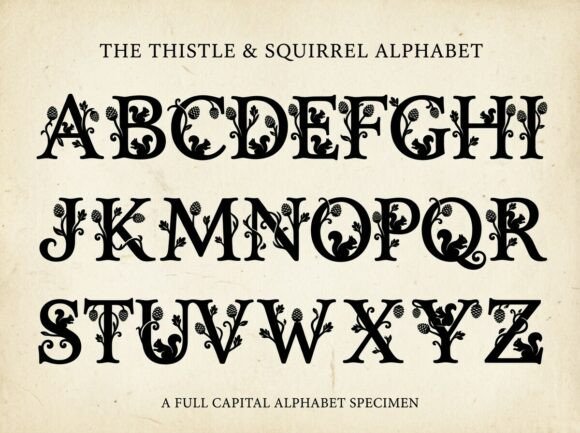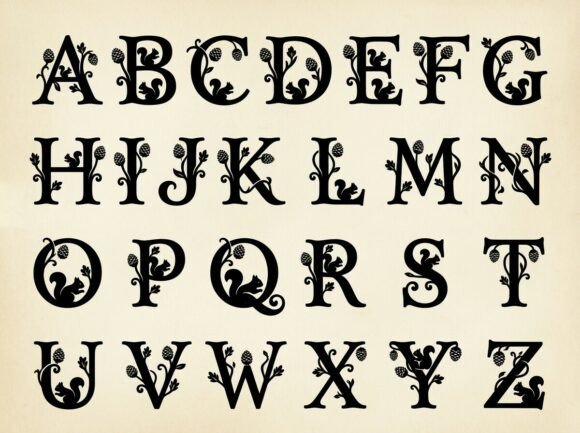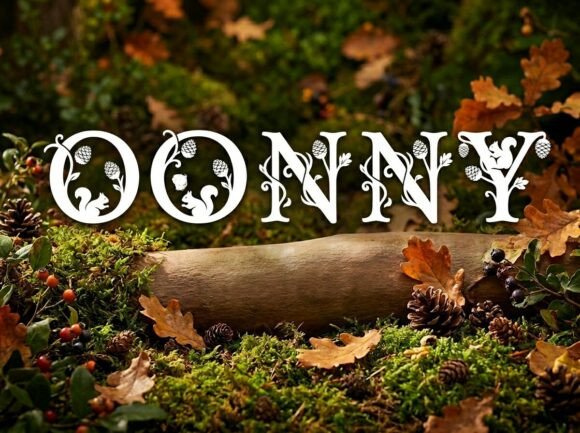
Introducing Donny Font: A Stunning Decorative Display Font
Are you tired of using the same old fonts for your designs? Look no further than Donny Font, a unique and artistic display font that’s sure to turn heads. This font is designed to be the center of attention, featuring bold and eye-catching elements that will elevate your designs to the next level.
What Makes Donny Font Special?
Donny Font is a decorative display font that’s perfect for creators who want to break away from the ordinary. Its strong visual personality and unique artistic elements make it ideal for bold headlines, artistic logos, and creative packaging. Whether you’re a designer, crafty DIY enthusiast, or entrepreneur, this font is sure to inspire your creativity.
Key Features of Donny Font
- Unique Artistic Elements: Donny Font features one-of-a-kind artistic elements that will add a touch of elegance and sophistication to your designs.
- Strong Visual Personality: This font has a bold and eye-catching personality that’s sure to grab attention.
- Versatile: Donny Font is perfect for a variety of design projects, including bold headlines, artistic logos, and creative packaging.
- Professional and Polished Finish: Despite its bold and artistic nature, Donny Font maintains a professional and polished finish that’s suitable for even the most high-end designs.
Why Choose Donny Font?
Donny Font is the perfect choice for designers and crafters who want to add a touch of elegance and sophistication to their designs. Here are just a few reasons why:
- Add Visual Interest: Donny Font’s unique artistic elements and strong visual personality make it perfect for adding visual interest to your designs.
- Stand Out from the Crowd: With Donny Font, you’ll be able to create designs that stand out from the crowd and grab attention.
- Professional Quality: Despite its bold and artistic nature, Donny Font maintains a professional and polished finish that’s suitable for even the most high-end designs.
Tips for Using Donny Font
Here are a few tips for getting the most out of Donny Font:
- Use for Headlines and Titles: Donny Font is perfect for bold headlines and titles, where its unique artistic elements and strong visual personality can really shine.
- Pair with Other Fonts: Donny Font pairs well with other fonts, making it easy to create visually interesting and dynamic designs.
- Experiment with Colors and Textures: Don’t be afraid to experiment with different colors and textures to really make your designs pop.
Donny Font is a stunning decorative display font that’s perfect for designers and crafters who want to add a touch of elegance and sophistication to their designs. With its unique artistic elements, strong visual personality, and professional quality, this font is sure to inspire your creativity and help you create designs that stand out from the crowd.